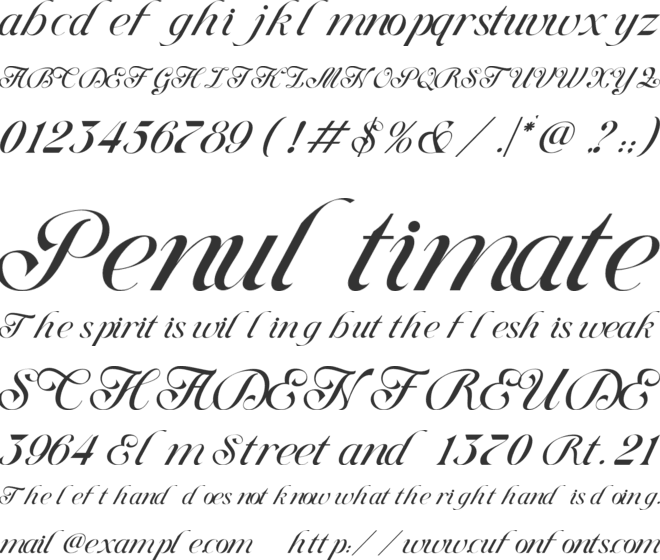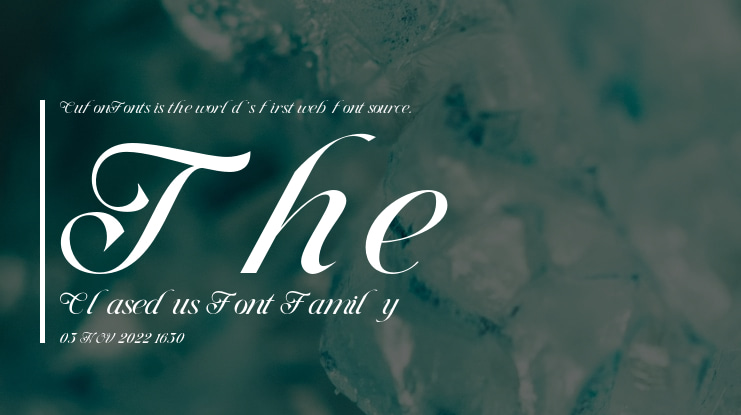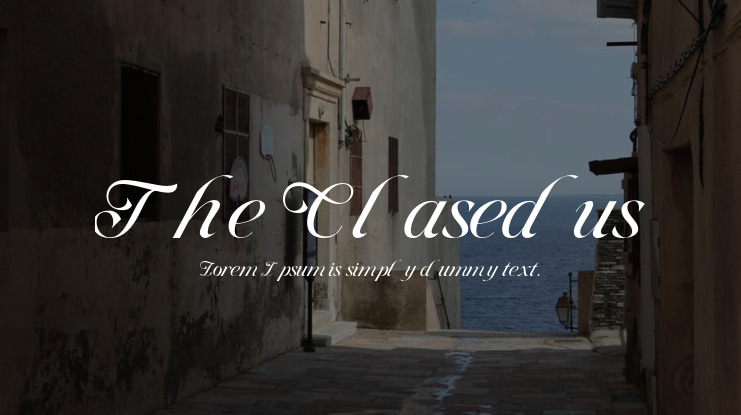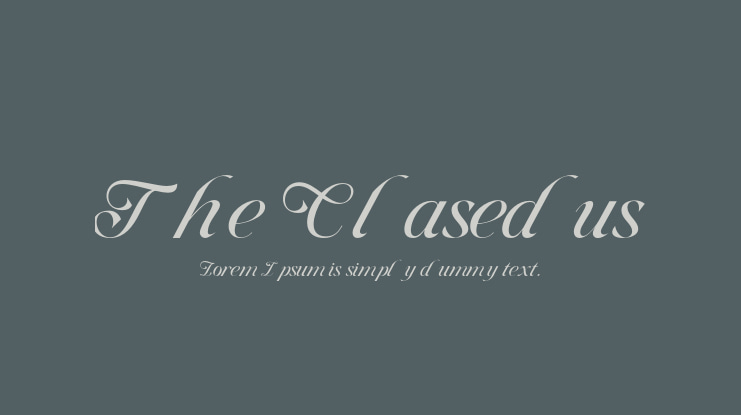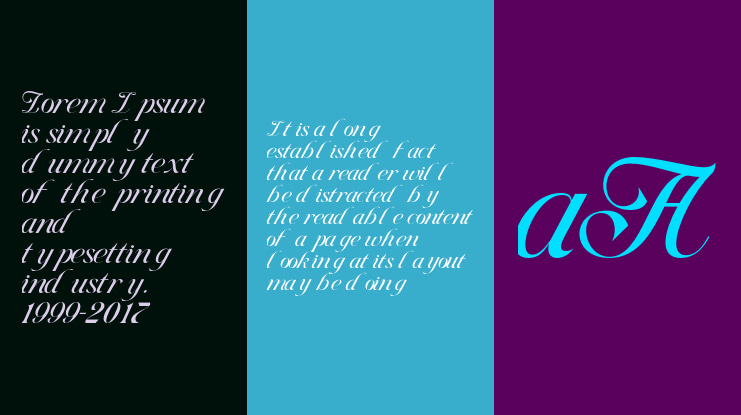
The Clasedus Font
Christmas is getting closer, and the holiday season has arrived. We're excited to introduce a script font that is perfect for Christmas: The Clasedus. This beautiful font seamlessly blends elegance with festive spirit, exuding warmth to those you love. Ideal for invitations, greeting cards, or any seasonal design, The Clasedus brings a touch of nostalgia and heartfelt joy to your holiday projects.